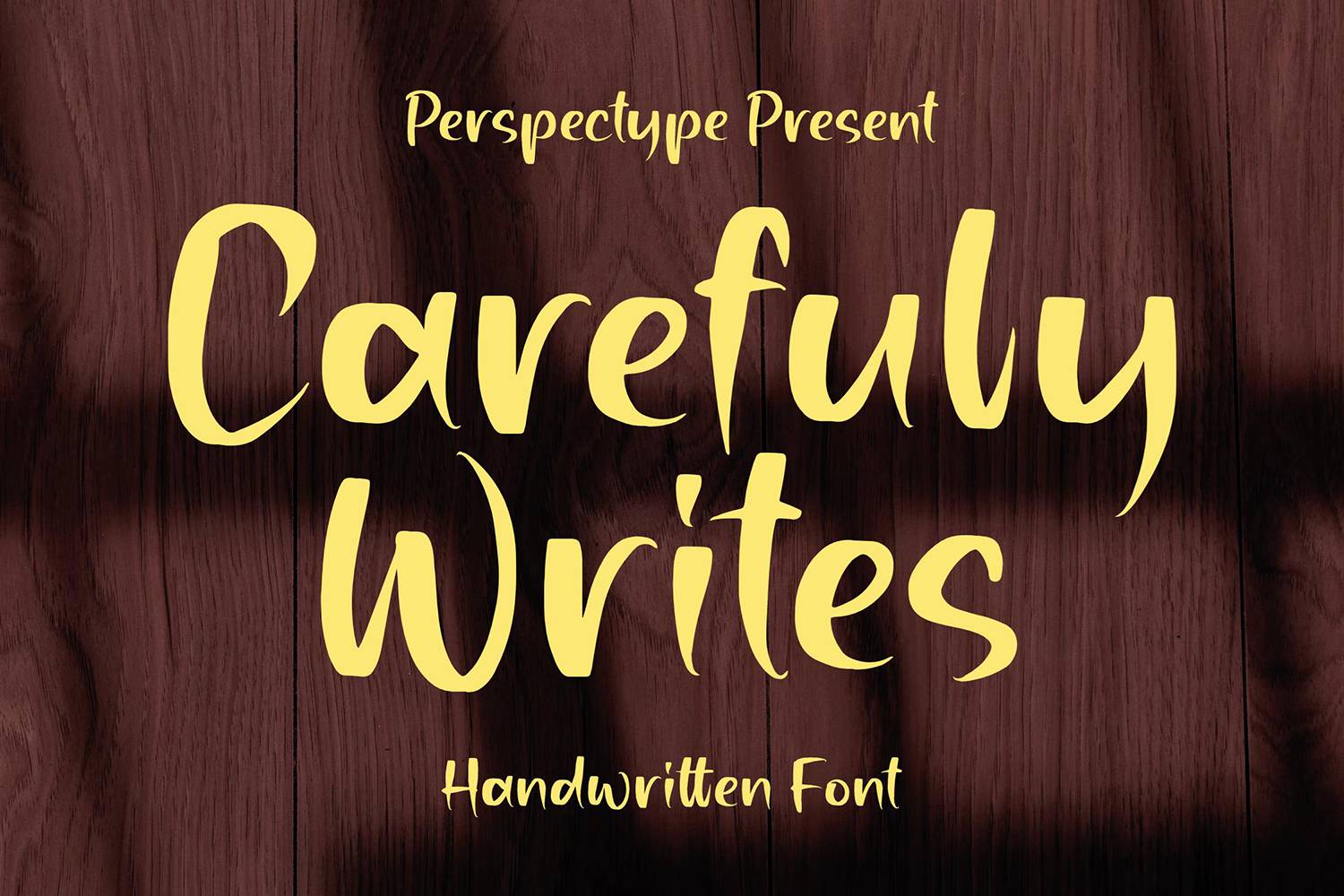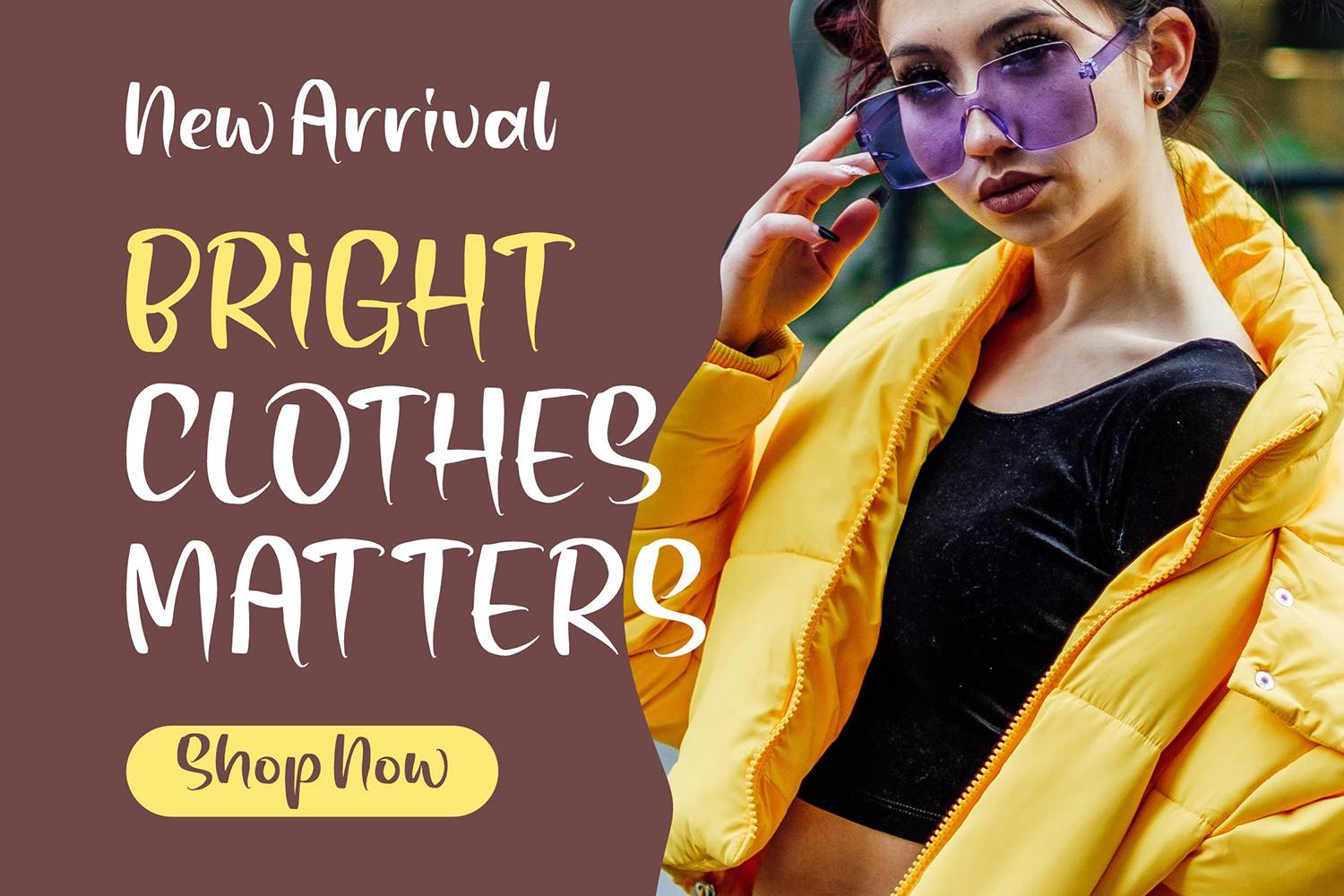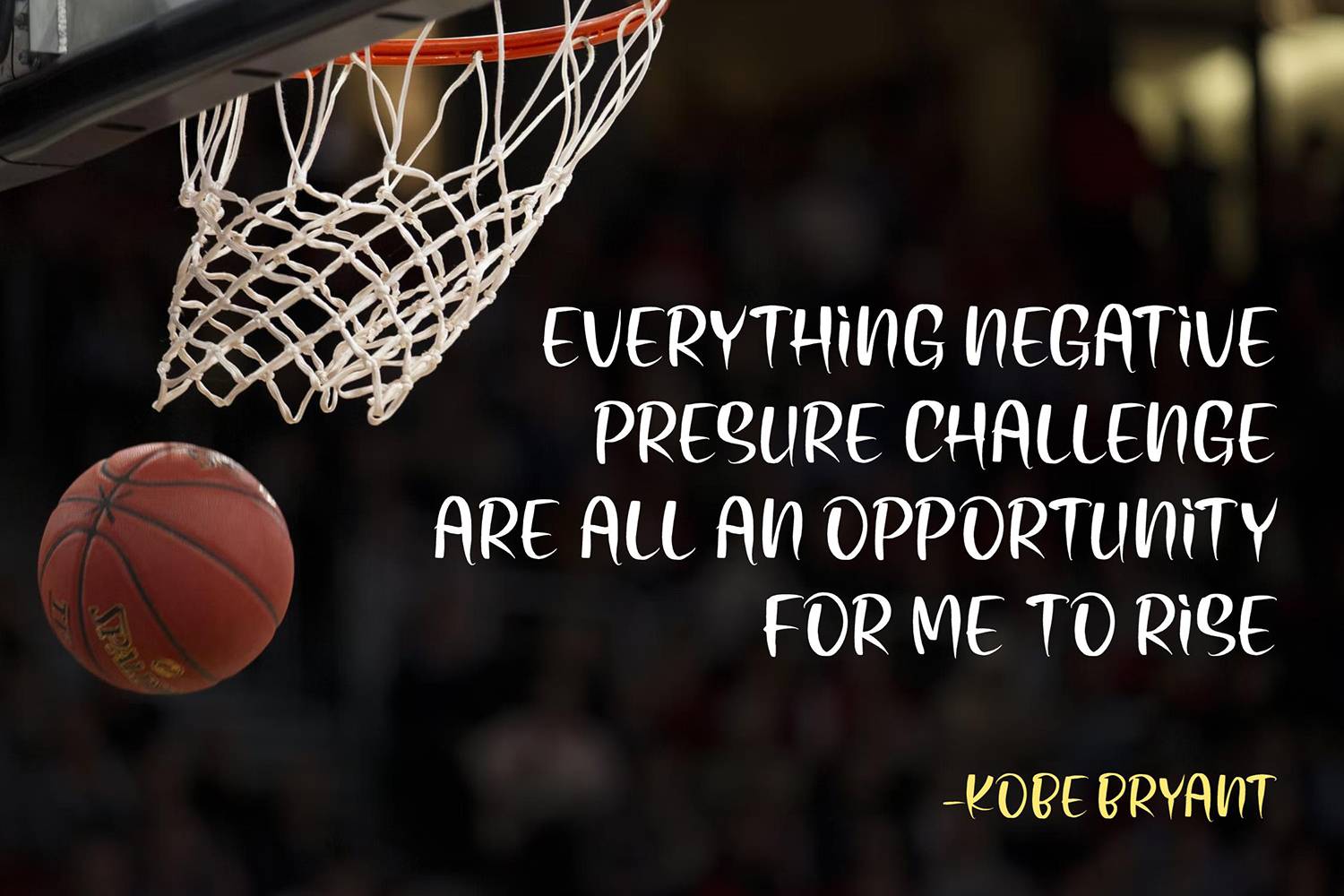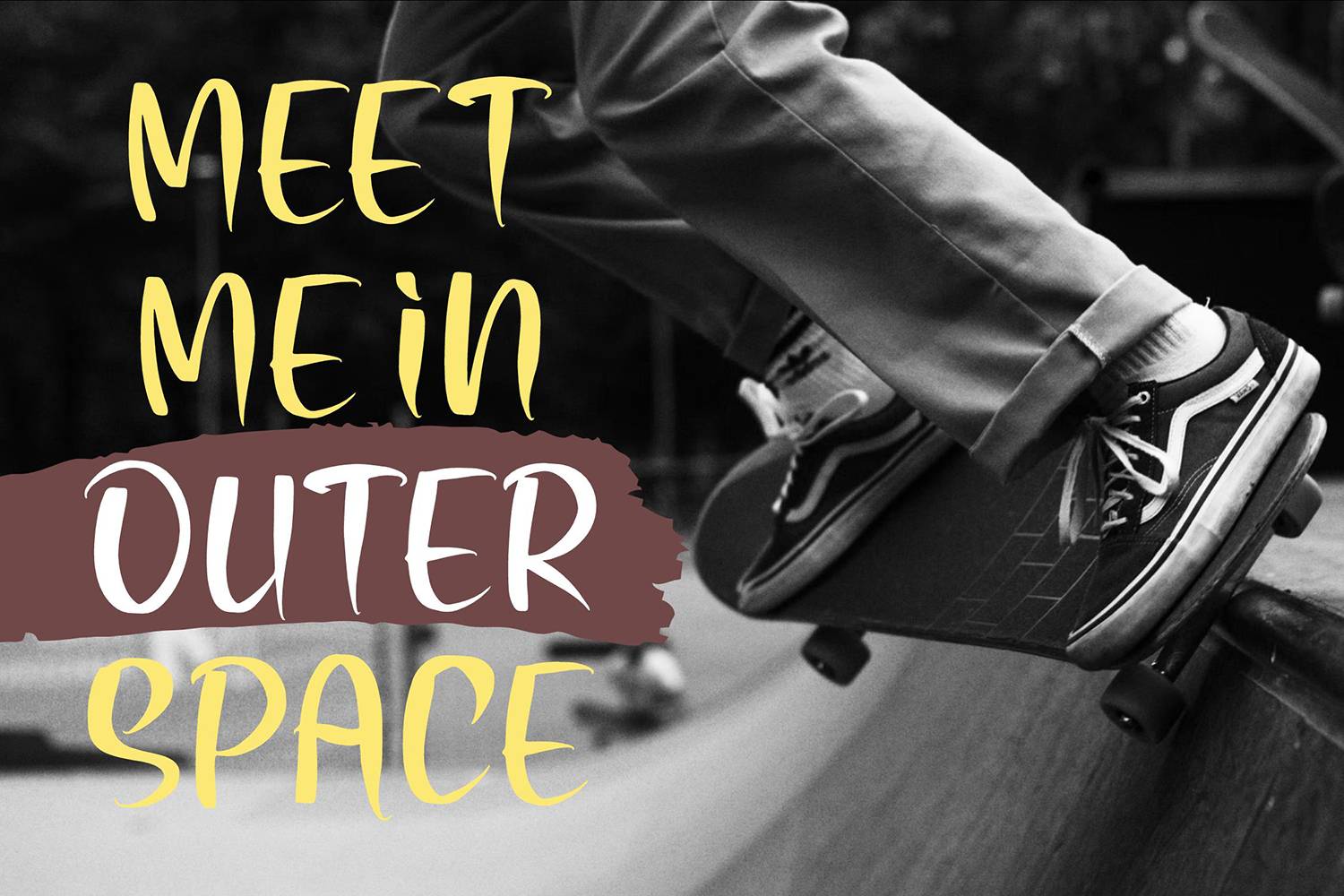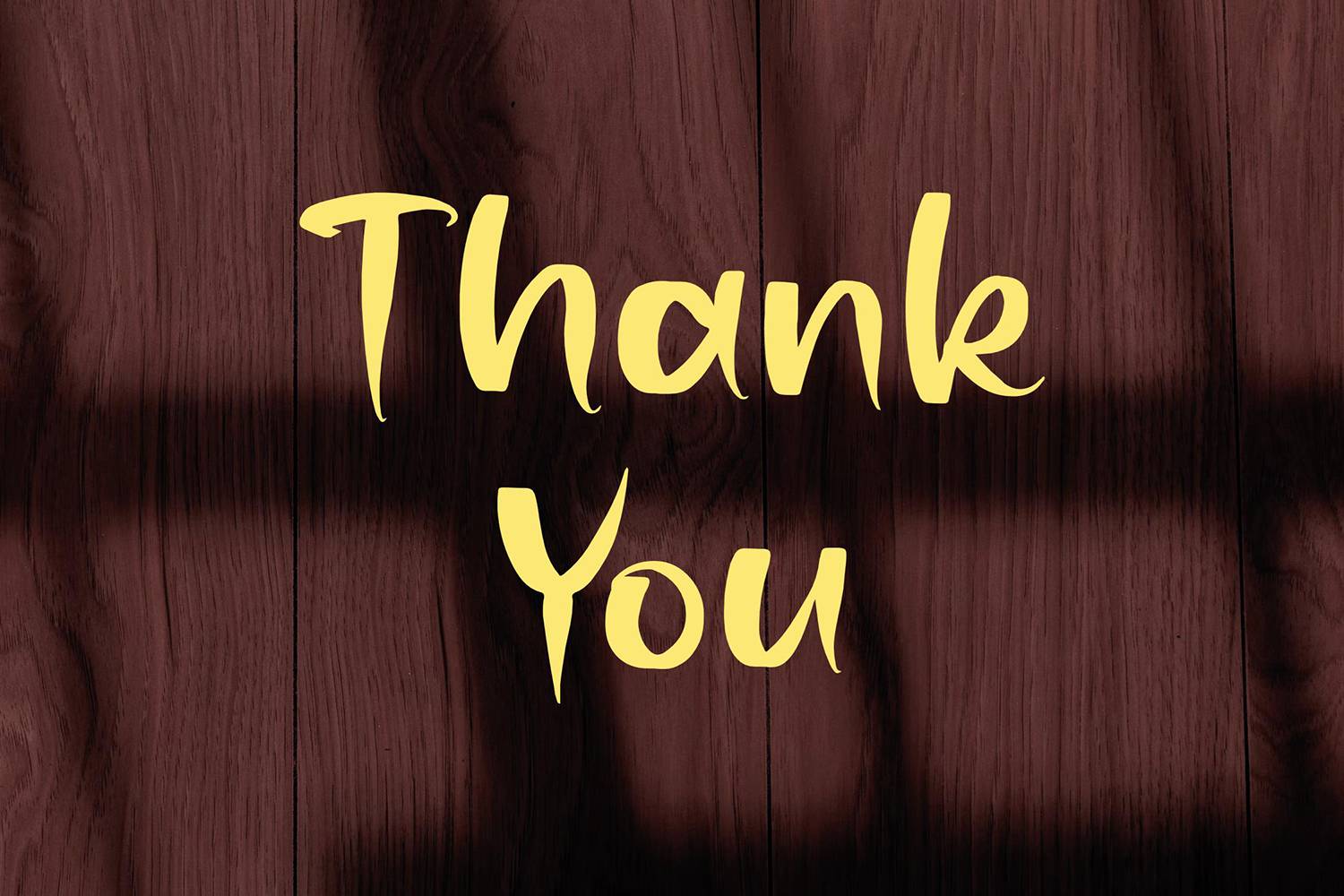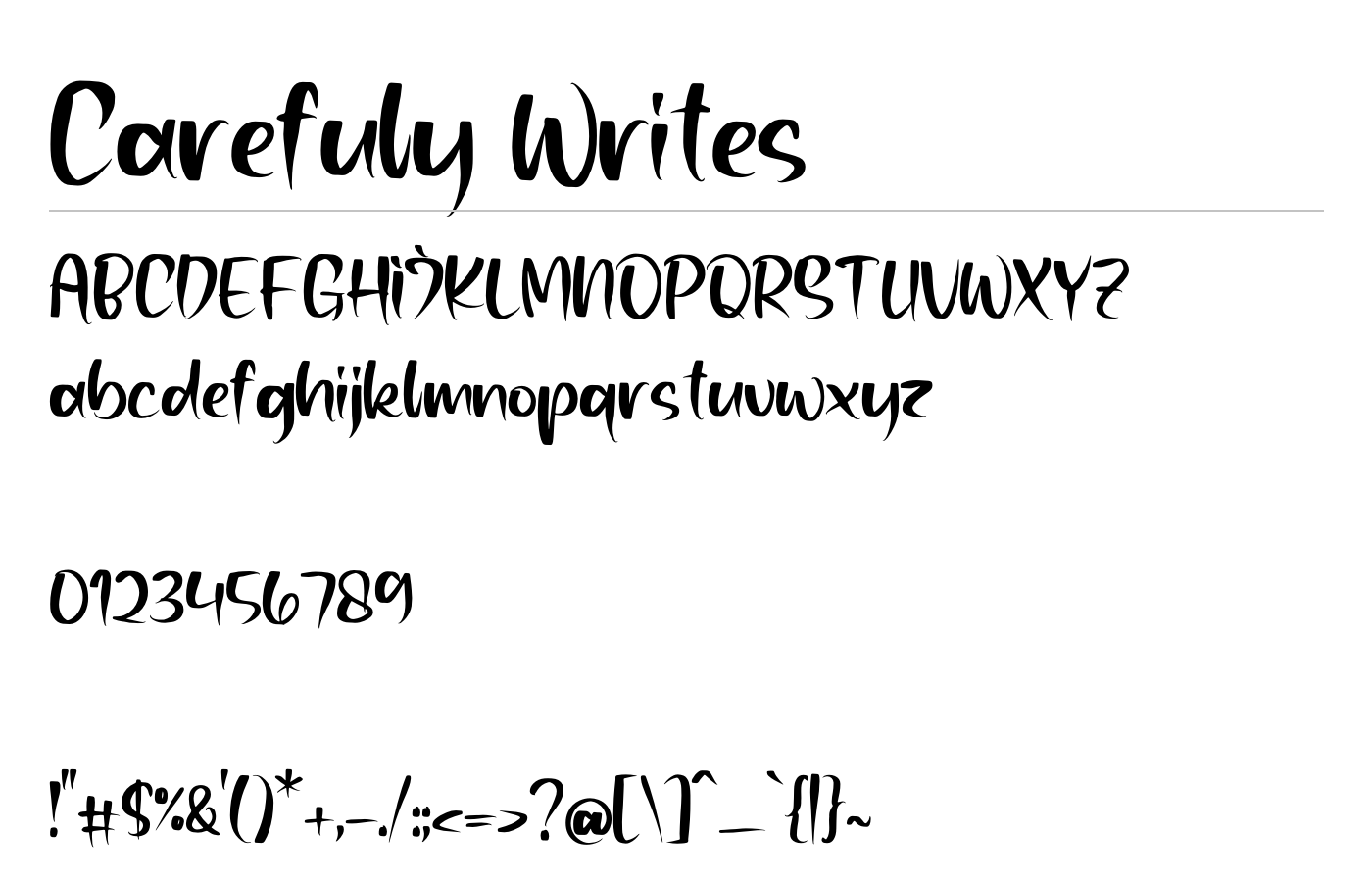
Carefully Writes is a lively handwritten script font with a playful and casual feel, featuring bold yet smooth strokes and a natural, flowing style. Its distinctive letterforms have a slightly irregular shape, giving the font a warm, approachable personality perfect for creative and informal designs. This font works well for branding, invitations, social media, and any project seeking a friendly, expressive touch.
Carefuly Writes Font
About Carefuly Writes Font